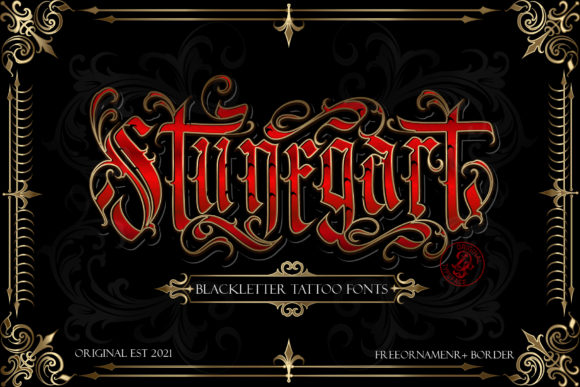
Dive into the realm of typography and embrace the captivating charm of Stunegart Font, a blackletter masterpiece that exudes a nostalgic aura and an undeniably vintage aesthetic. Crafted by the skilled hands of Dansdesign, this font family is a treasure trove of artistic expression, beckoning you to embark on a journey through time.
With Stunegart Font as your creative companion, you hold the key to unlocking a world of visual delight. Its intricate letterforms, reminiscent of ancient manuscripts and timeworn engravings, carry an air of mystery and intrigue that will leave your audience spellbound. Whether you're a seasoned designer or just starting your creative journey, Stunegart Font will ignite your imagination and elevate your designs to new heights of excellence.
Step back in time and experience the allure of yesteryear with Stunegart Font. Its timeless beauty will effortlessly transport your designs to an era of elegance and refinement. Picture your words adorned with the intricate details and sweeping curves that define this blackletter gem. Each letter, a work of art in its own right, will add a touch of sophistication and intrigue to your projects.
Harness the power of Stunegart Font to create designs that resonate with your audience on a deeper level. Its nostalgic charm will evoke a sense of familiarity and comfort, drawing them into your visual story. From enchanting logos and captivating posters to eye-catching social media graphics and stunning website designs, Stunegart Font will transform your creative vision into a tangible reality.
Unlock the boundless potential of Stunegart Font and let your imagination run wild. Its versatility knows no bounds, making it the perfect choice for a myriad of design projects. Craft stunning wedding invitations that exude timeless elegance, or create eye-catching flyers and brochures that demand attention. Unleash your creativity and explore the endless possibilities that await you with Stunegart Font as your trusted companion.